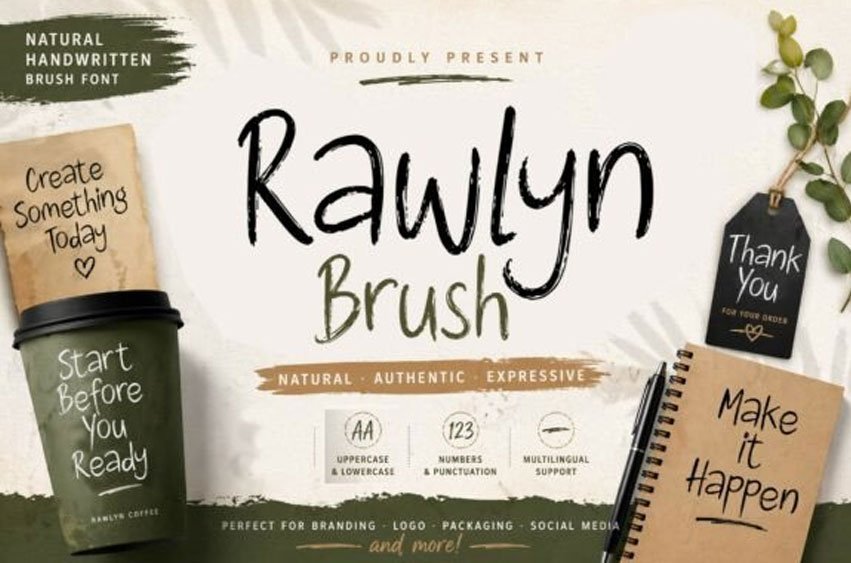
Rawlyn Brush Font
Rawlyn Brush Font Infuse your projects with raw, organic energy using Rawlyn Brush, a vibrant display script that captures an “authentic-and-expressive” soul. This font features tall, hand-drawn letterforms uniquely characterized by rhythmic, textured “dry-brush” strokes and natural imperfections that bridge the gap between artisanal coffee shop aesthetics and modern lifestyle branding.
With its medium structural weight and energetic personality, Rawlyn Brush is the premier choice for independent cafe identities, boutique organic product packaging, inspirational quote art, and high-impact “natural-and-noteworthy” social media headers.